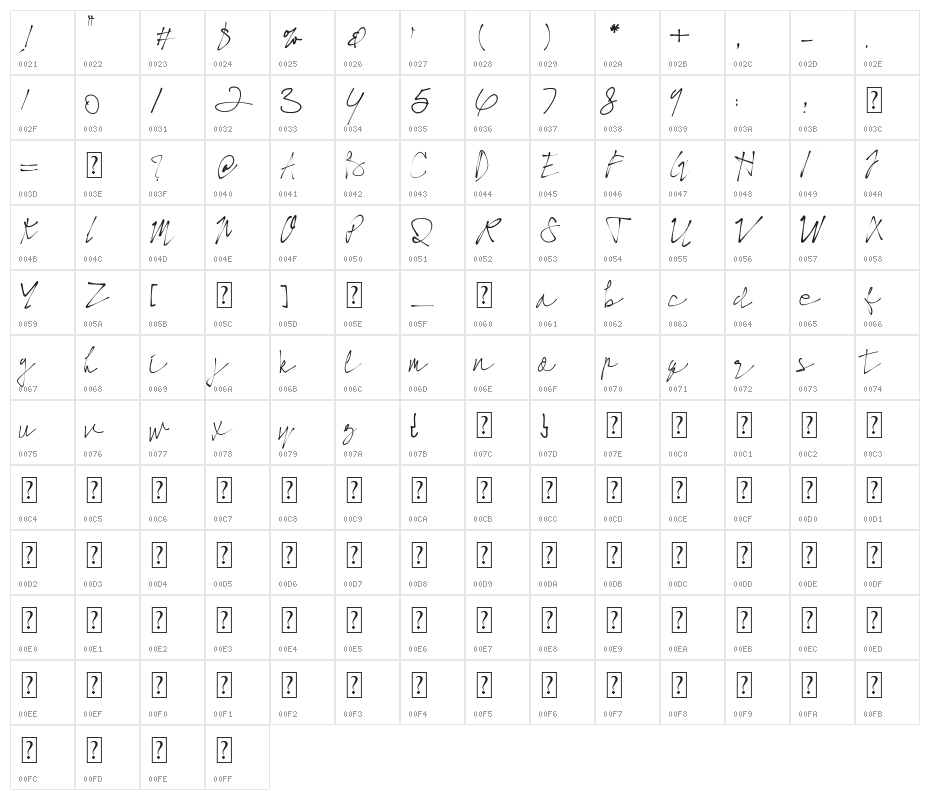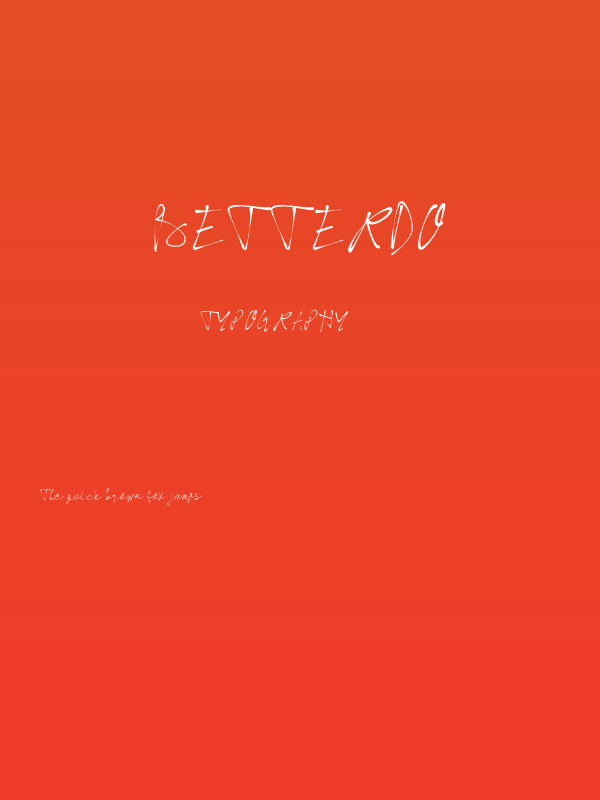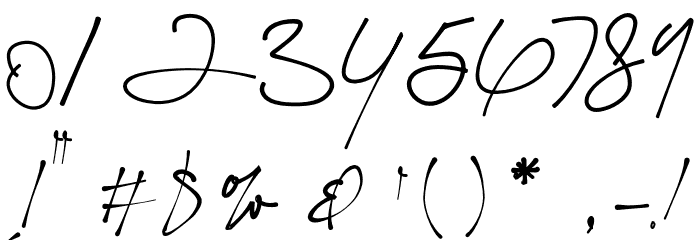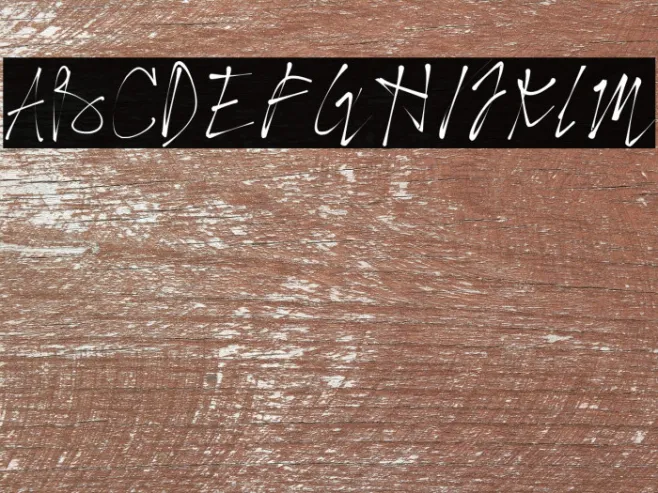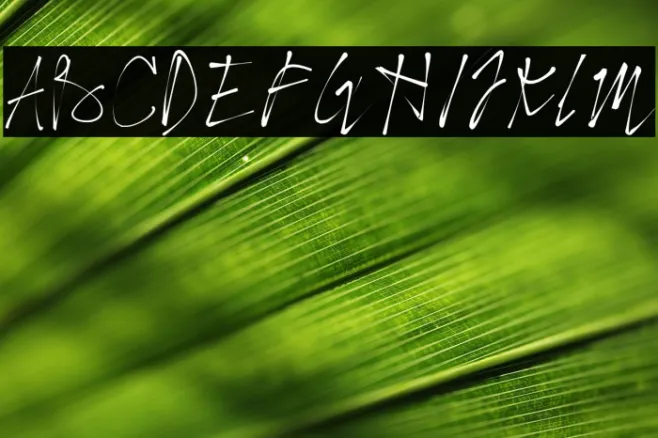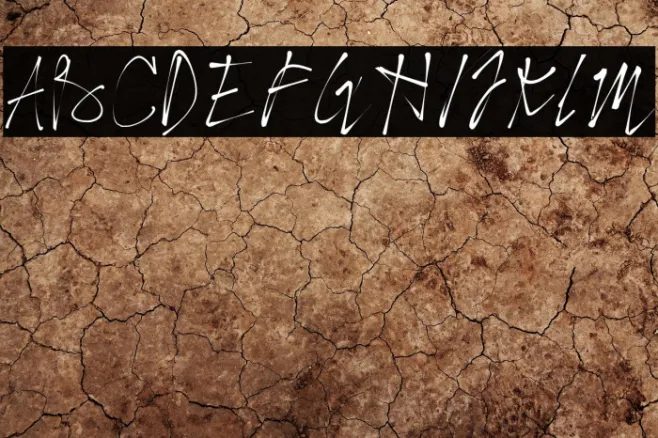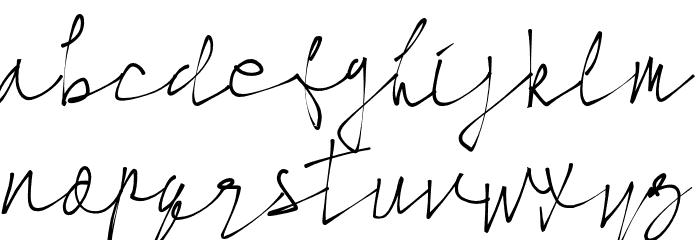
Betterdo Font
Betterdo Description
This font exudes a dynamic and energetic feel with its fluid, cursive style. The characters are crafted with a natural, handwritten appearance, featuring a playful yet elegant flow. The strokes are varied in thickness, providing a sense of movement and spontaneity. The uppercase letters are slightly more structured, while the lowercase letters maintain a casual, freeform style. Numbers and special characters are consistent with the overall aesthetic, adding to the font's versatility. This font is perfect for projects that require a personal touch, such as invitations, greeting cards, or branding materials that aim to convey creativity and individuality.